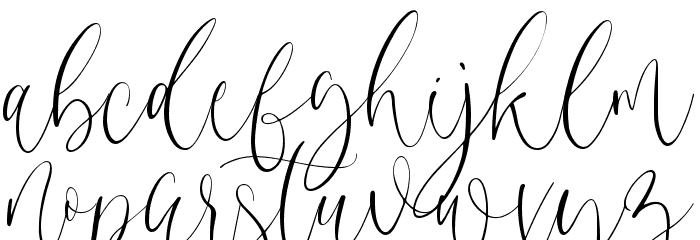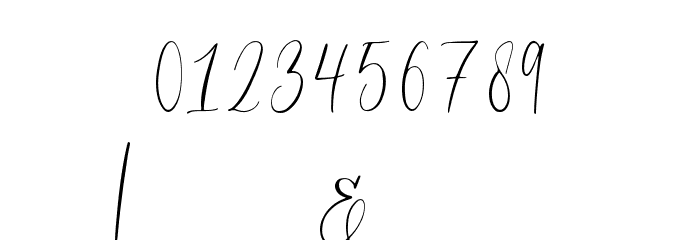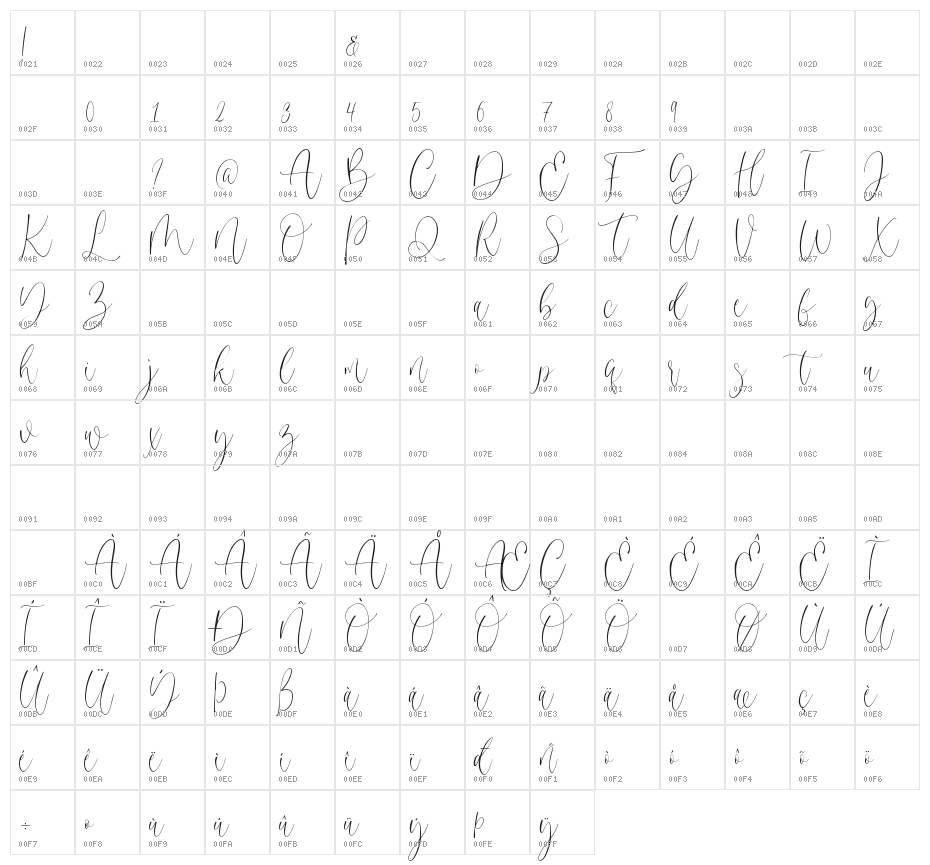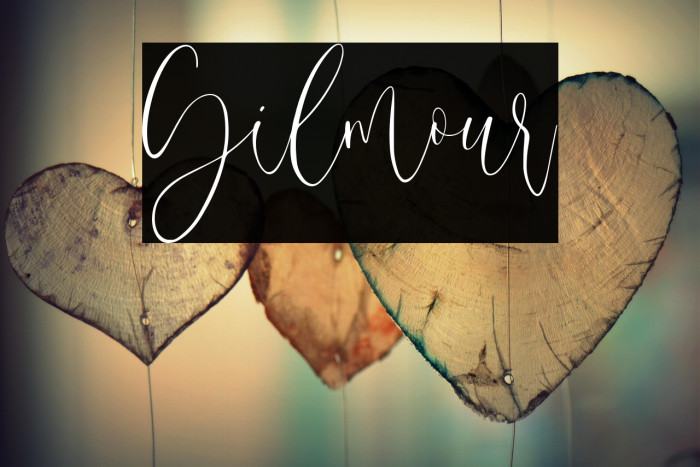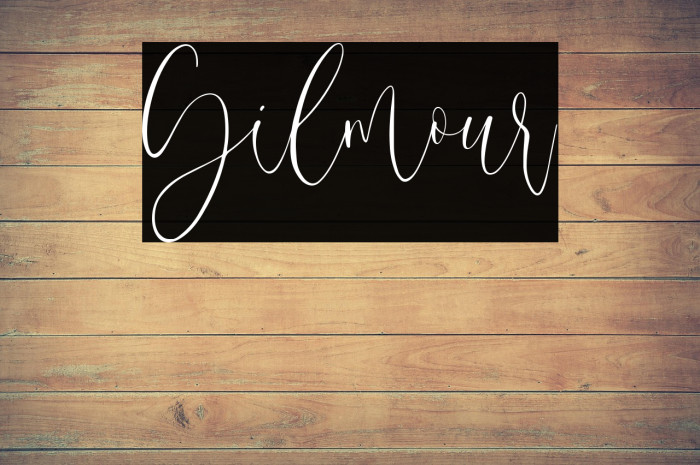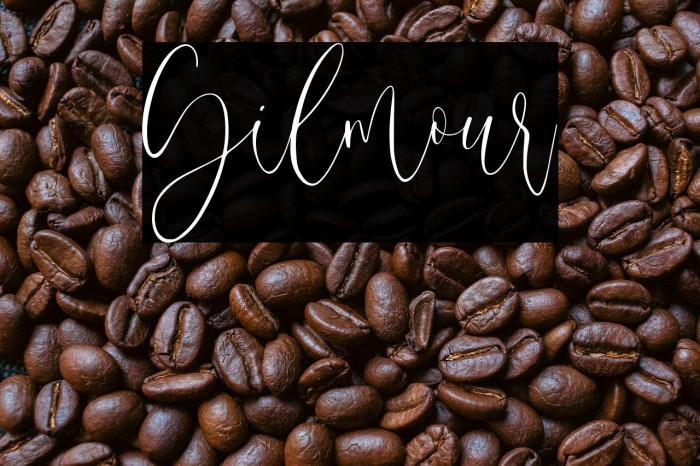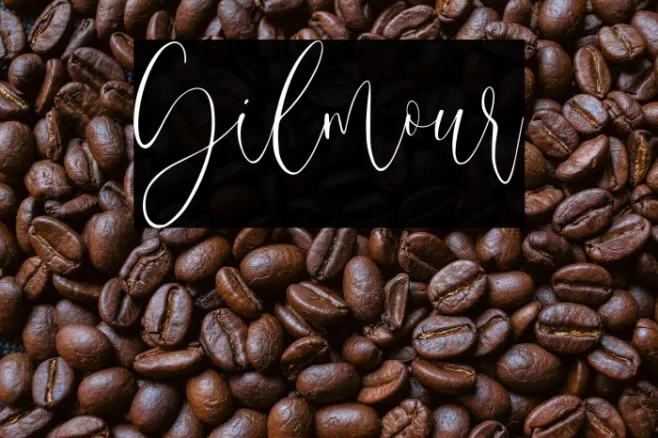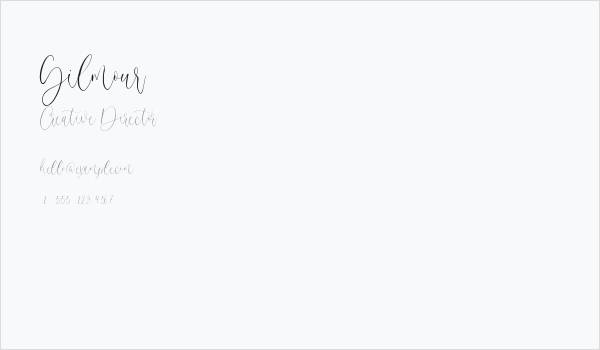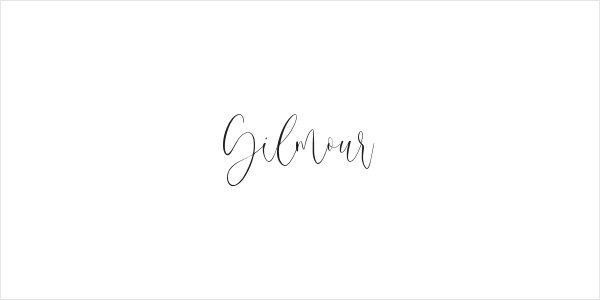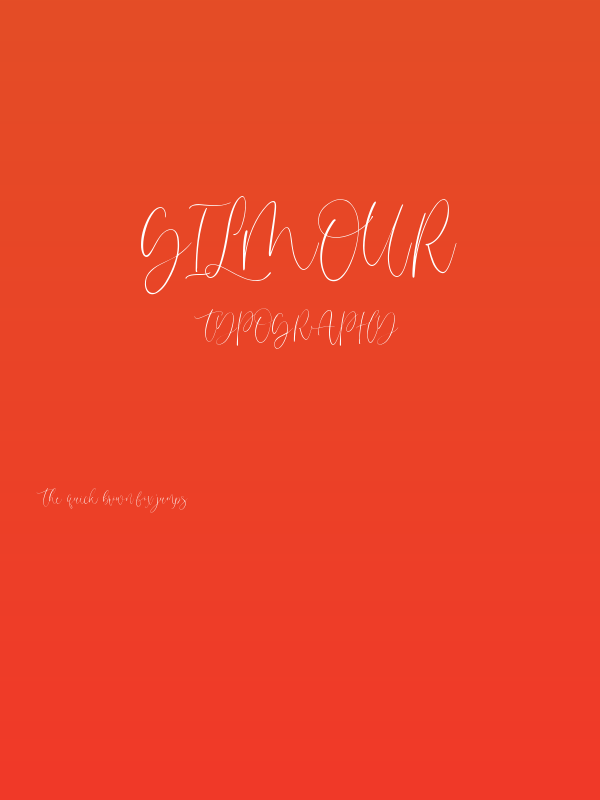
Gilmour Font
This elegant script font features fluid, cursive strokes that convey a sense of sophistication and grace. The uppercase letters are characterized by their sweeping curves and loops, while the lowercase letters maintain a consistent flow with delicate connections. The numerals are stylishly integrated, maintaining the overall aesthetic of the font. Special characters are thoughtfully designed to complement the script style, enhancing its versatility. This font is ideal for projects that require a touch of elegance and refinement, such as wedding invitations, branding, and high-end product packaging.
A graceful script font with fluid, cursive strokes and elegant curves.
- Proposed Projects: Wedding invitations, luxury branding, elegant product packaging, personal stationery.
- Overall Style: Elegant
- Use Case: Logos, Invitations, Branding